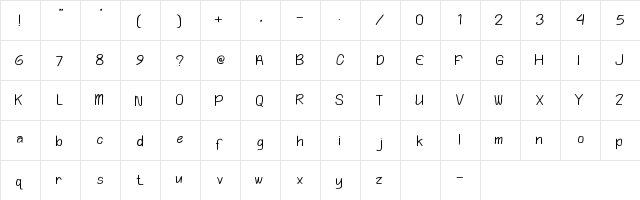
Playing Bumb Regular
| Foundry | Paranesia |
| Designer | Paranesia |
Design Context for Playing Bumb Typeface
Playing Bumb is a composed and adaptable typeface that performs quietly and consistently across a wide range of design contexts.
Pro Tip: Pair Playing Bumb with a font of contrasting weight or personality to build a more expressive typographic hierarchy.